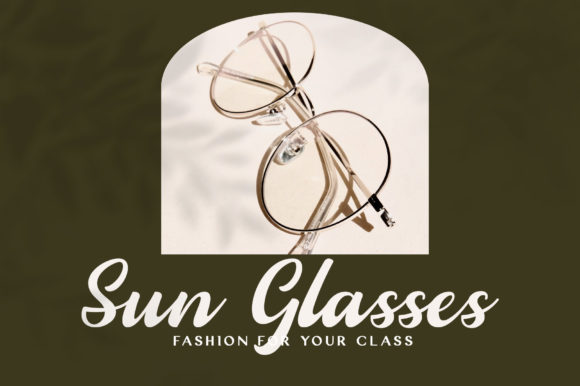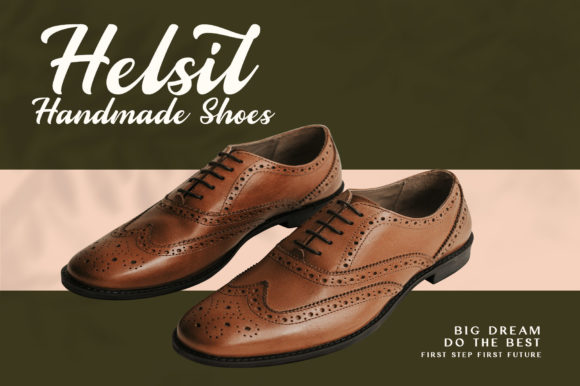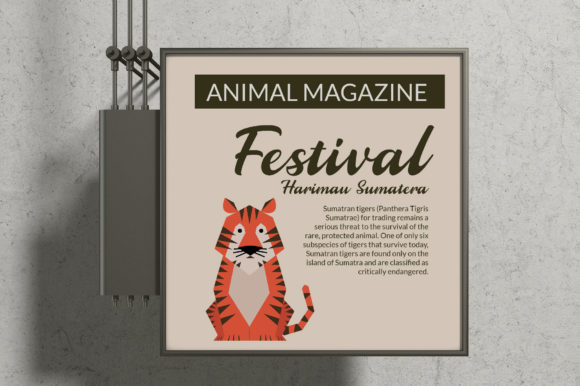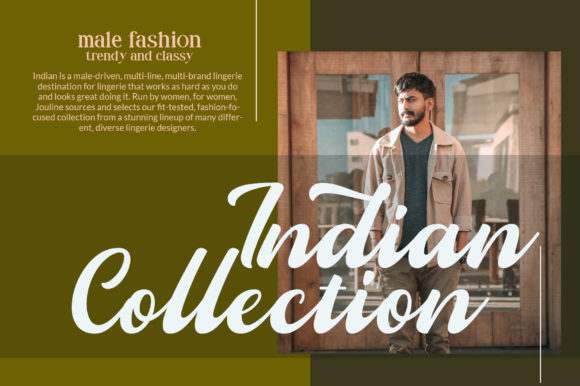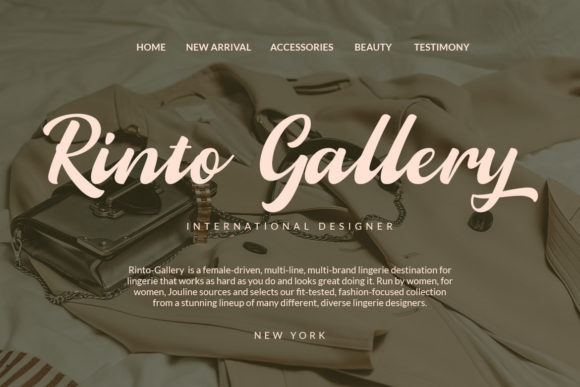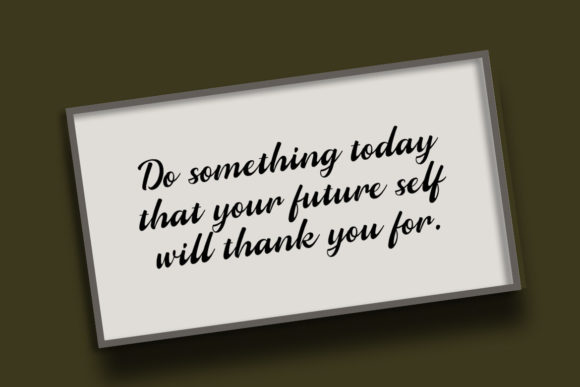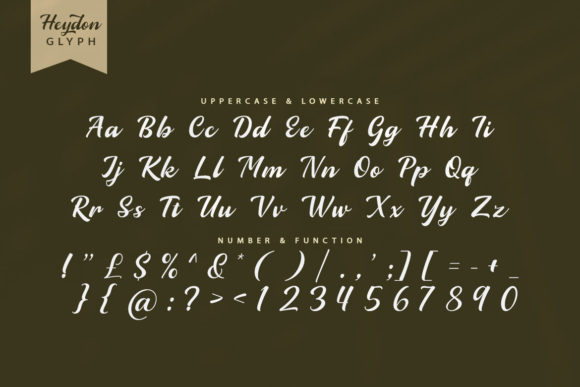
About Heydon Font
Heydon Script is a bold script font. It’s perfect for branding projects, logos, wedding designs, social media posts, advertisements, product packaging, product designs, label, photography, watermark, invitation, stationery, and any projects that need handwriting taste.